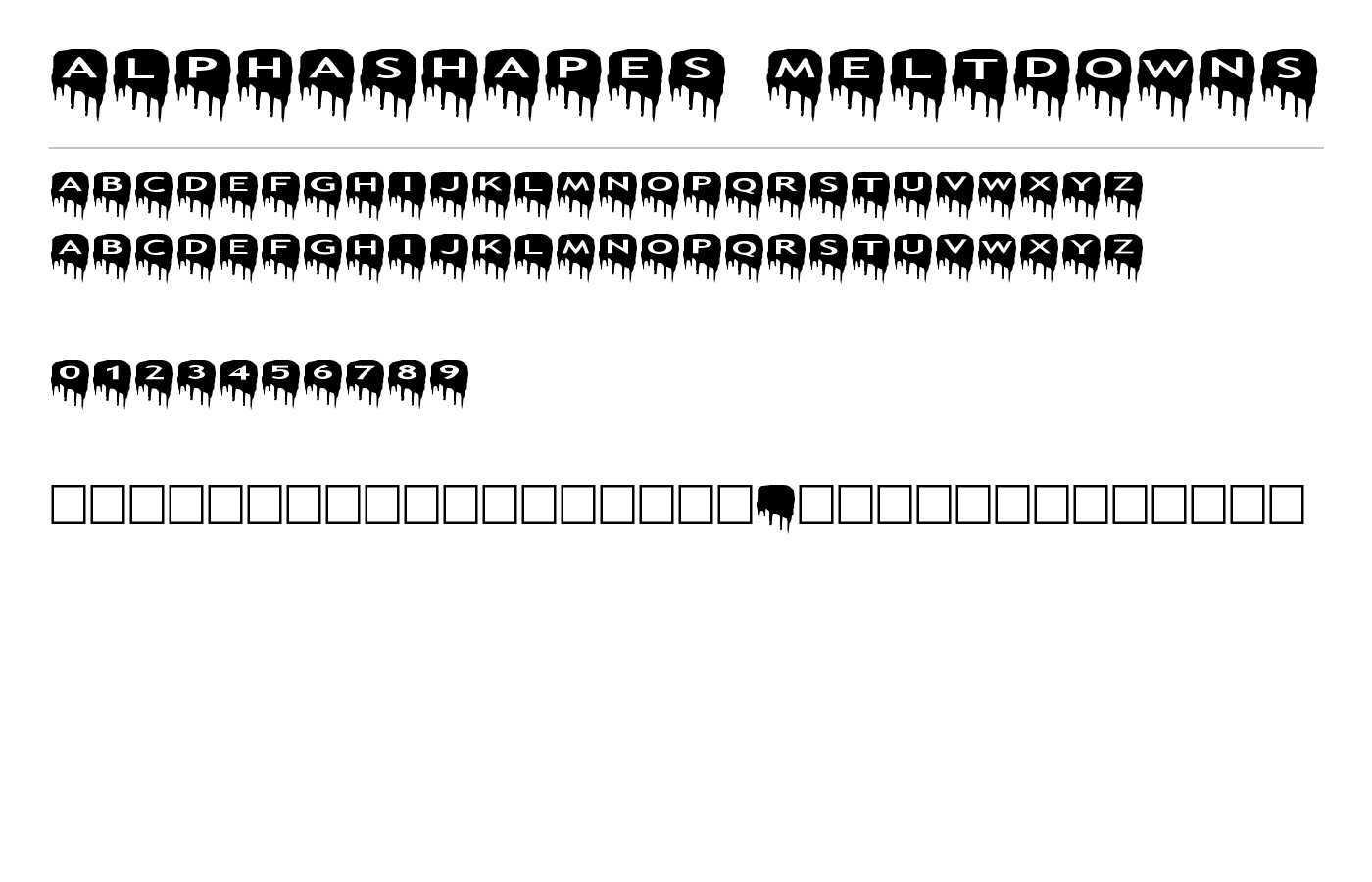
AlphaShapes Meltdowns is a bold, decorative sans serif font featuring uppercase letters with a dripping, melting effect that gives a spooky and playful vibe. Its solid, heavy shapes combined with the unique melting tails make it perfect for eye-catching headlines, Halloween-themed designs, and creative branding needing a fun yet eerie touch. This font works best in display uses where its distinctive style can stand out and add personality.
AlphaShapes meltdowns Font
About AlphaShapes meltdowns Font